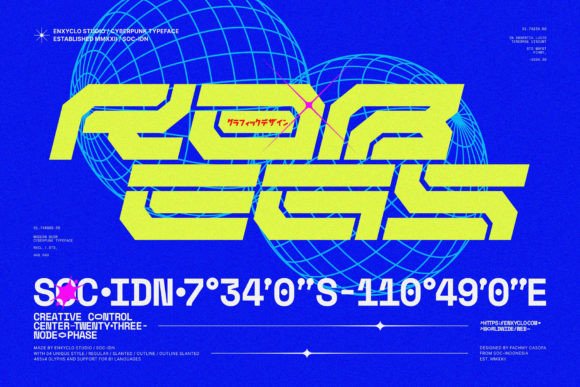
Introducing Rabegs Font, the ultimate font for gaming enthusiasts and creative minds! Crafted by Enxyclo, this cyberpunk futuristic techno-mecha font is here to revolutionize your designs and take your creativity to new heights.
Step into a world of limitless possibilities with Rabegs Font. Its unique and awe-inspiring aesthetics bring a whole new dimension to your projects, ensuring that they stand out from the crowd. Whether you're designing a website, poster, logo, or any other creative endeavor, this font will add that extra touch of innovation and sophistication that your work deserves.
But what sets Rabegs Font apart from the ordinary fonts out there? Well, let us enlighten you. This font is not just a collection of characters on a screen; it's an immersive experience that transports your audience into the thrilling realm of cyberpunk. Its sleek and edgy design captures the essence of futuristic technology, making every letter come alive with energy and excitement.
With Rabegs Font, you have the power to captivate and engage your audience like never before. Its extensive range of glyphs and ligatures, all conveniently accessible through PUA encoding, allows for seamless creativity and endless combinations. Your imagination is the only limit when it comes to shaping your message with this versatile font.
Imagine the thrill of showcasing your gaming brand or website with a font that screams innovation and adventure. Picture the impact of a logo that effortlessly merges sleek sophistication with a daring cyberpunk vibe. Rabegs Font takes your designs beyond the ordinary and into the extraordinary.
But it's not just about aesthetics. Rabegs Font understands the importance of user experience, ensuring legibility and clarity even in the most intricate designs. Say goodbye to dull and uninspiring typography and embrace the power of a font that sparks emotion and excitement.
It's time to unleash your creativity and let Rabegs Font be the catalyst for your next masterpiece. Elevate your designs, inspire your audience, and make a bold statement with a font that speaks volumes. Get ready to immerse yourself in the world of cyberpunk and leave a lasting impression with Rabegs Font.